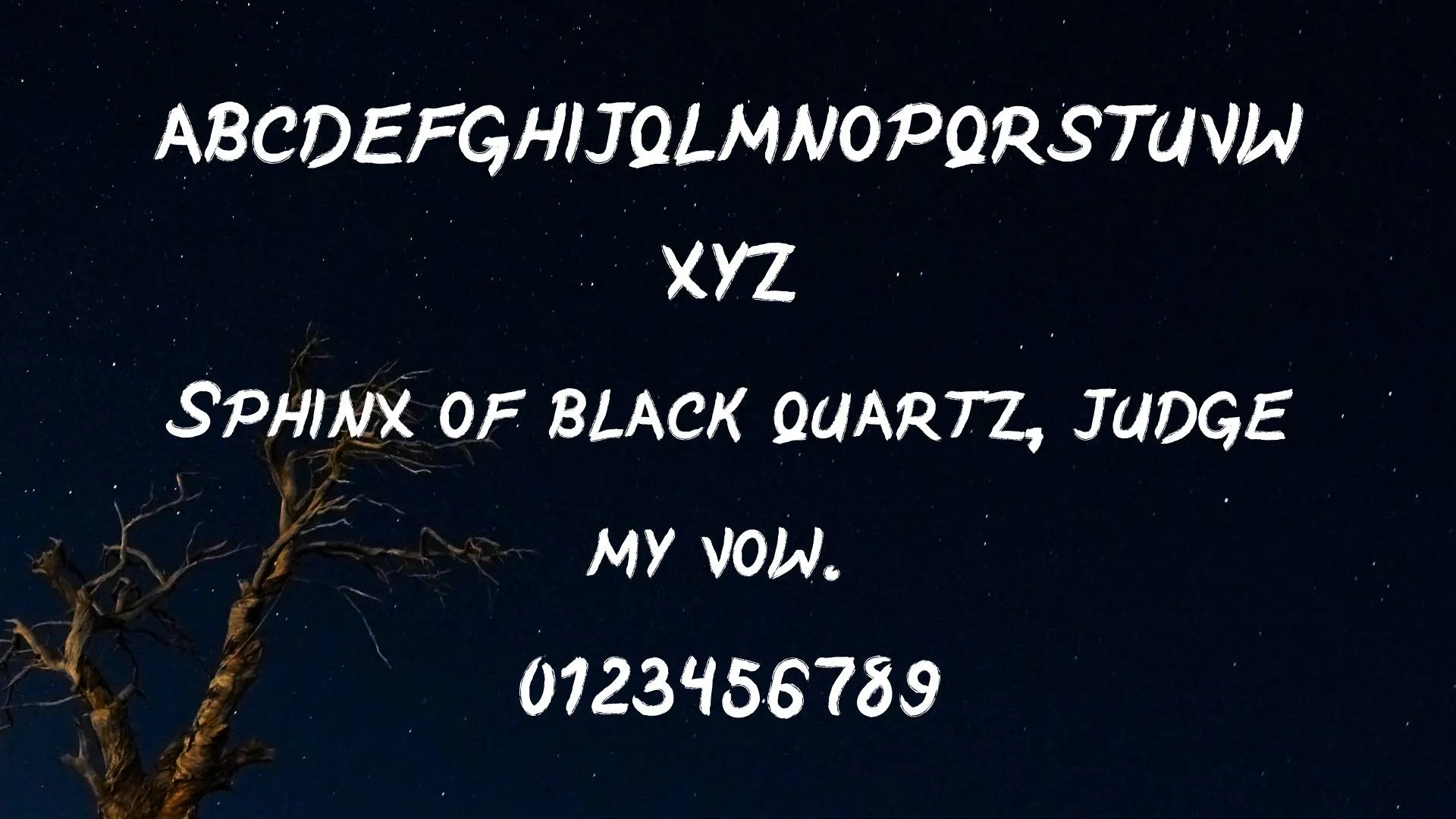
Midnight Font belongs to a Brush family. This typeface was designed by a very notable designer named
- Midnight Regular
View of Midnight Font
Midnight Font Info
| Name | Midnight Font |
| Designer | SushiHueDesign |
| Style | Brush |